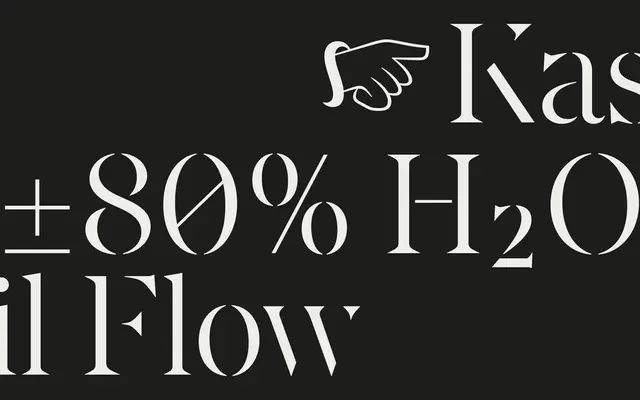
At Gambit Stencil
Arillatype · Andy Lethbridge · 2022
At Gambit Stencil specimen from Arillatype
A high-contrast stencil typeface with angular wedge serifs, released across five weights with matching italics for branding and editorial use.
Designed by Andy Lethbridge and released in May 2022, the typeface pairs sharp stencil cuts with a high-contrast structure and wedge serifs that give it an upright, confident presence at display sizes. Ten styles span Light to Black with matching italics, and the full family includes variable font files. A suite of chess and typographic symbols, multiple numeral sets including old-style, circled and Roman numerals, and contextual alternates round out a well-appointed character set of 656 glyphs per style.
A high-contrast stencil typeface with angular wedge serifs, placing it firmly in the display category. Its stencil cuts and sharp contrast distinguish it from conventional serif or slab classifications.